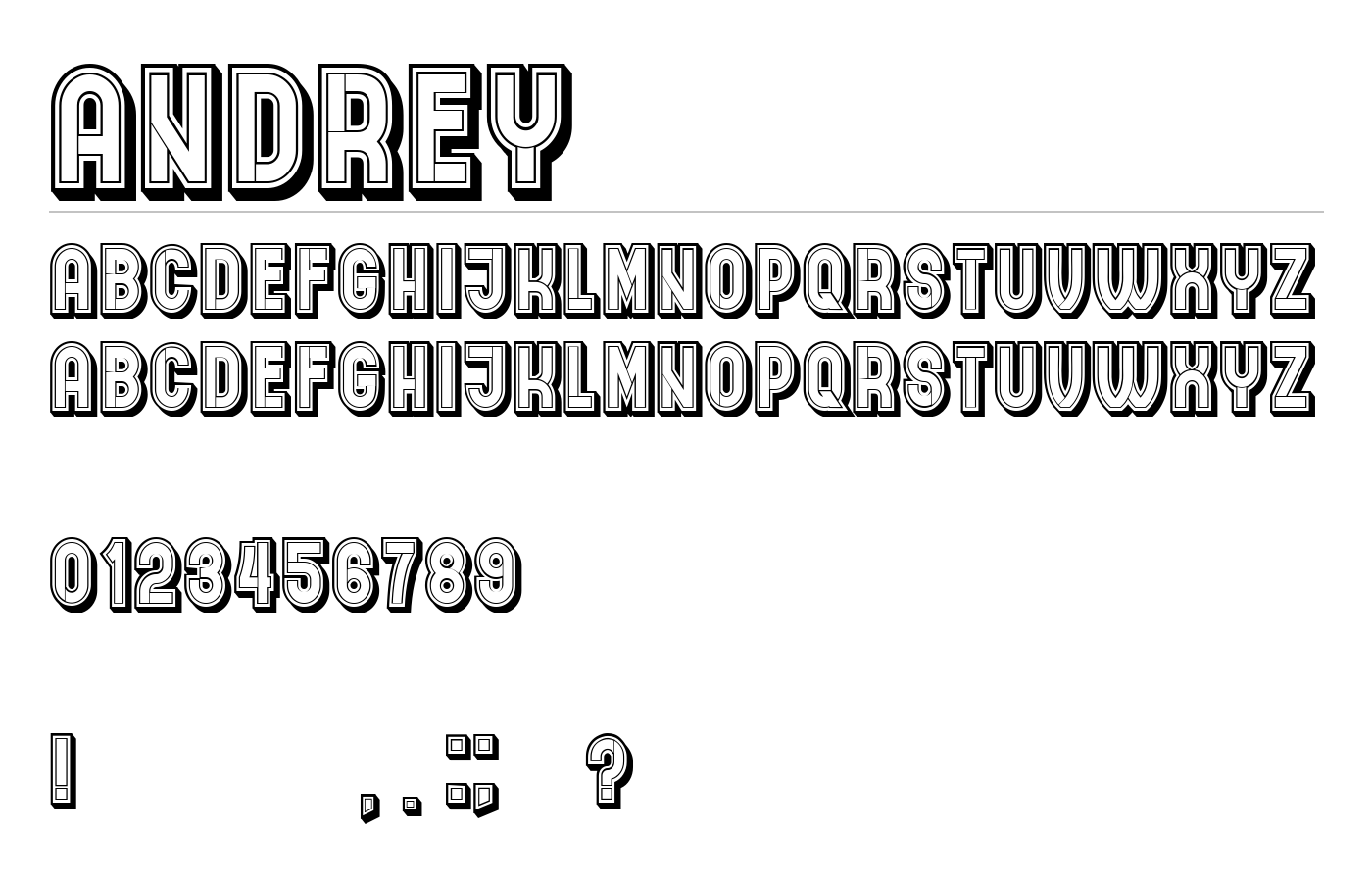
Andrey Font is a bold, three-dimensional sans serif typeface featuring blocky, uppercase letters with a strong, shadowed outline that gives a retro, eye-catching effect. Its geometric shapes and solid weight make it ideal for headlines, posters, and branding where a playful yet sturdy style is needed. This font works well for vintage-inspired designs or any project that wants to convey confidence with a unique, impactful look.
Andrey Font
About Andrey Font